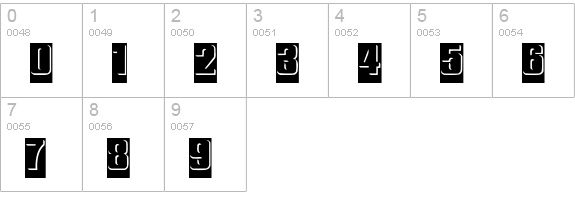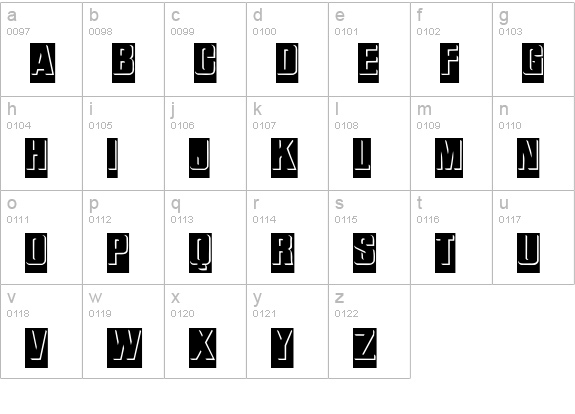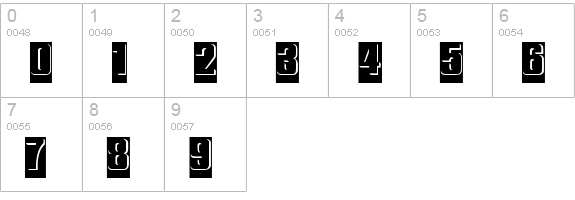
ReliefInReverse Font Details
ReliefInReverse font is a stunning display typeface that exudes elegance and sophistication. Its unique design features a clever twist on traditional relief typography, with reversed contours that create a captivating visual effect. The font's smooth curves and sharp edges strike the perfect balance between modernity and classic appeal. Designed with meticulous attention to detail, ReliefInReverse font offers a multitude of stylistic options, allowing for endless creative possibilities. Whether used for branding, editorial design, or web applications, this font is guaranteed to make a lasting impression. What sets ReliefInReverse font apart is not just its exceptional aesthetic qualities, but also its accessibility. It is freely available to download at FontsMarket.com, making it the perfect choice for both personal and commercial projects. This generosity not only empowers designers to explore their creativity, but also ensures that high-quality typography is accessible to all. With its versatility, elegance, and the added benefit of being free, ReliefInReverse font is a must-have for any designer's toolkit. Elevate your designs and captivate your audience with this extraordinary typeface.